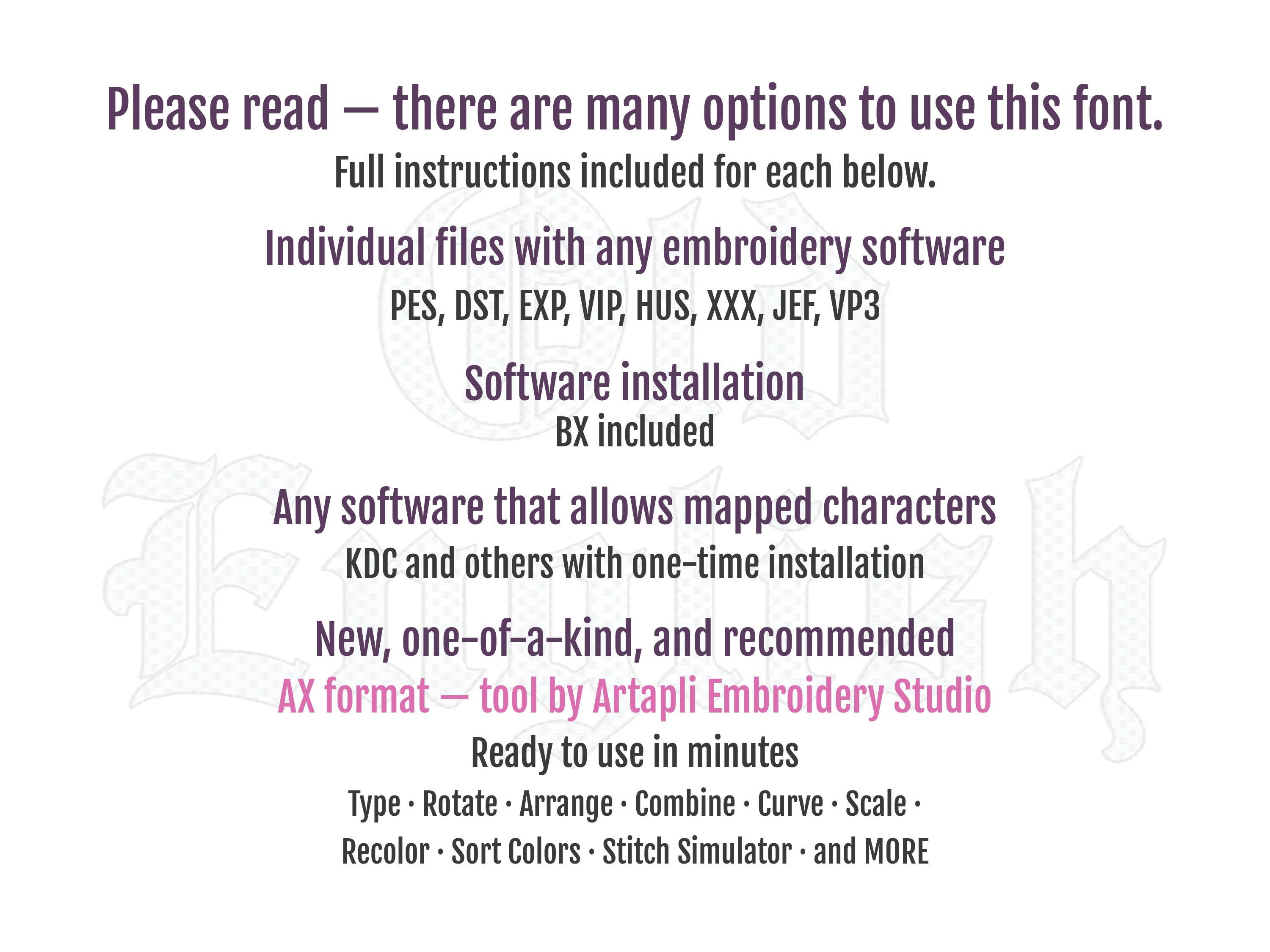
Waffle stitch Old English type Font 2 colors alphabet waffle fill and outline machine embroidery designs letters and numbers sizes from 1 up to 3 inches
Awesome textured waffle stitch fill! Stunning result!
Entire alphabet, uppercase and lowercase letters, numbers, and punctuation.